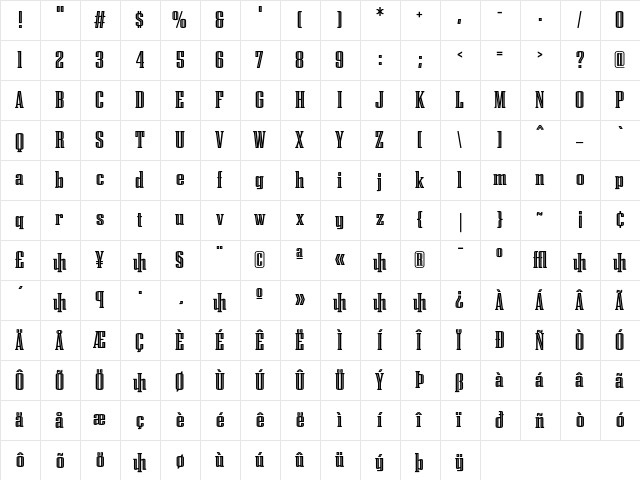
Citadel Inline
Design Context for Citadel Typeface
Citadel brings ornamental detail and strong personality to headlines and identities, where visual impact matters more than quiet functionality.
Font Pairing: Pair with a clean neutral sans-serif for body copy to let Citadel's character lead without overwhelming the composition.
Pro Tip: Use Citadel exclusively at display sizes — it was designed to be seen, not read at length. Let a neutral companion handle body copy.